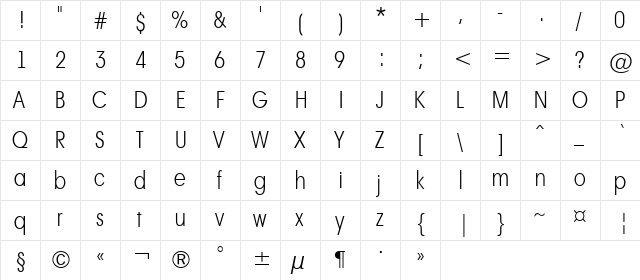
a_AvanteLtNr Thin
Design Context for a_AvanteLtNr Typeface
a_AvanteLtNr offers clean, dependable letterforms without strong stylistic allegiance, making it a practical choice for designers who need flexibility. Its slender proportions lend an understated elegance to any composition.